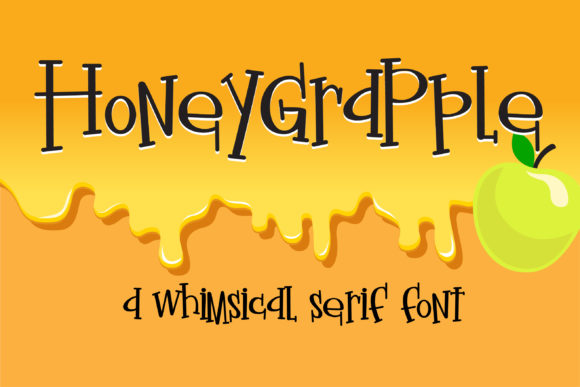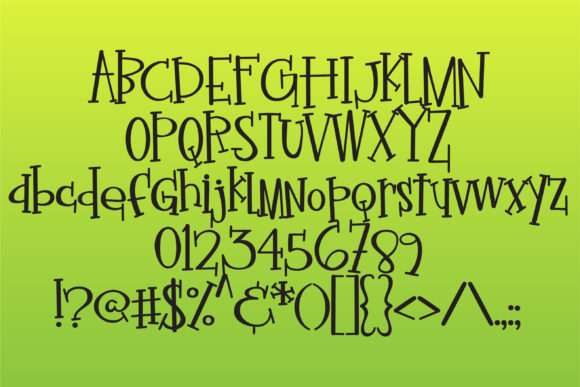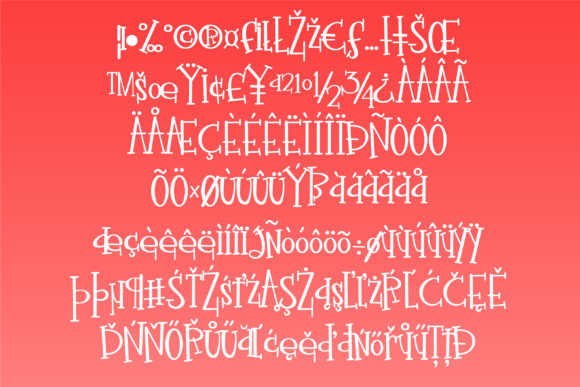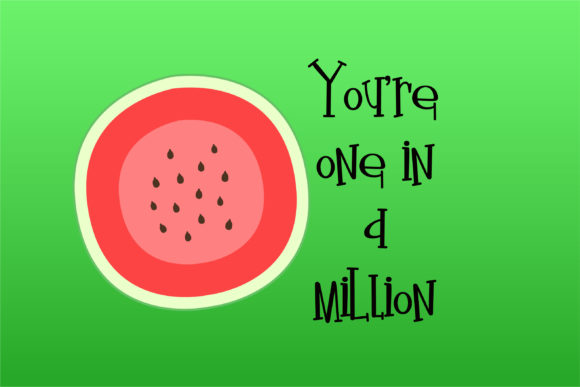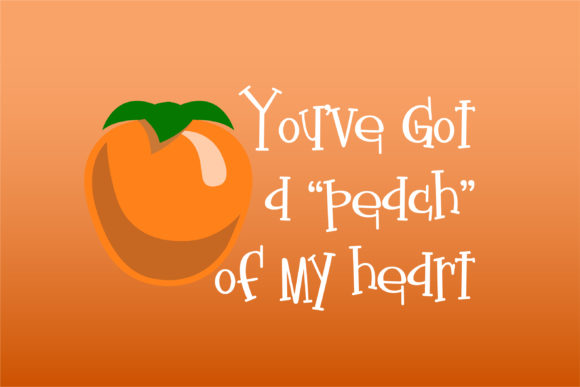
HomeScript FontsHoneygrapple Font Script Fonts Honeygrapple Font FacebookXPinterestWhatsApp Honeygrapple Font Poster 2 Honeygrapple Font Poster 3 Honeygrapple Font Poster 4 Honeygrapple Font Poster 5 About Honeygrapple Font Honeygrapple is a whimisical and playful script font with a unique twist. Get inspired by this adorable font! DOWNLOAD ON CREATIVE FABRICAThis font is sold and delivered by Creative Fabrica. Font Canyon may earn a commission if you buy through this link. People also explored Bettha Bottle Font Republica Banana Heather Raspberry Bella Canvas 3001 Disloyal Font Dreaming Font Feel Special Font Lovely Rainy Font Wind of Freedom Font Listin Script Font 321 0 TagsHoneygrapple Font Previous articleJadyn Maria FontNext articleDirgantara Font LEAVE A REPLY Cancel reply Comment: Please enter your comment! Name:* Please enter your name here Email:* You have entered an incorrect email address! Please enter your email address here Website: Save my name, email, and website in this browser for the next time I comment. Personal Use Free Arnprior Personal Use Free Read more about this font Knox Personal Use Free Read more about this font Adelaide Personal Use Free Read more about this font Alista Font Personal Use Free Read more about this font BLOG Elegant Wedding Invitation Fonts – Handwritten & Script Fonts Elegant Wedding Invitation Fonts Your wedding day is one of the most important moments of your life, and every detail matters—including your invitation design. Our... How to Install and Use Fonts on Windows, macOS, and Web Projects Transform Your Website: Elevate Your Typography with 7 Best Web Font Generators Where to Buy American Fonts Online in 2024